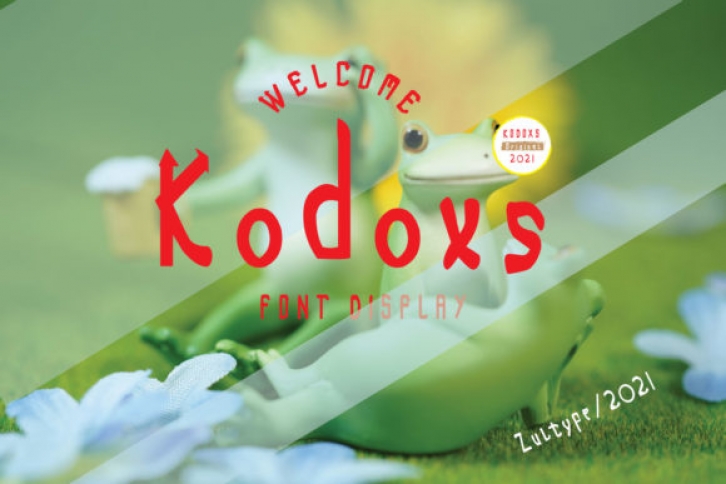
Kodoxs is a fun display font. Whimsical and a bit quirky, this font will brighten up each of your designs. Add it confidently to your projects, and you will love the results.